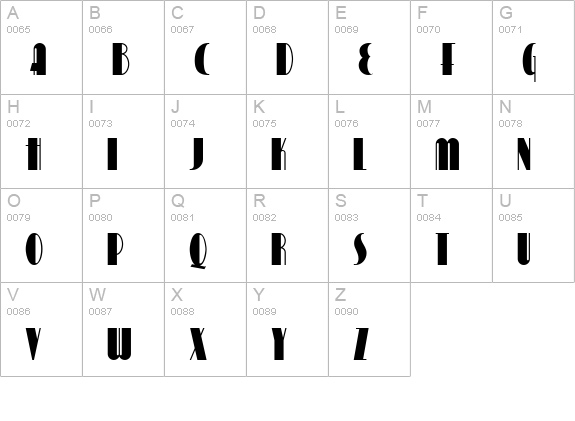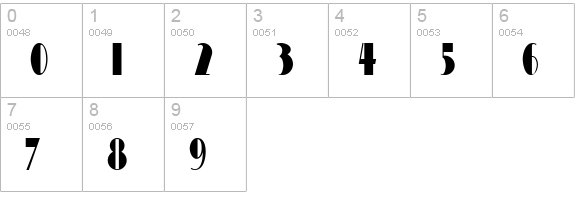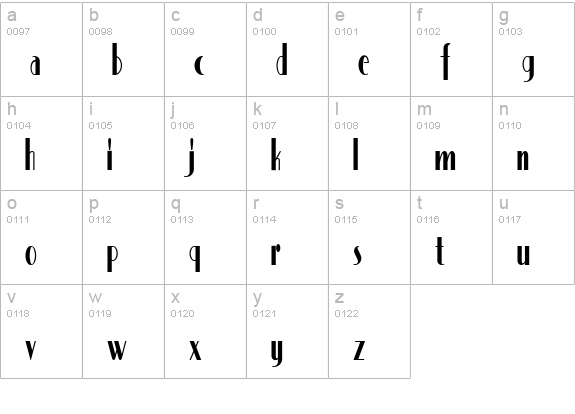
PicturePostcardNF Medium Font Details
PicturePostcardNF Medium is a balanced, medium-weight variant in the PicturePostcardNF typeface family \xE2\x80\x94 well suited to sub-headlines, navigation, and balanced editorial work.
PicturePostcardNF Medium font is a visually stunning typeface that effortlessly captures the essence of vintage postcards. With its elegant and intricate detailing, this font is perfect for adding a touch of nostalgia and charm to any project. The medium weight of the font strikes the perfect balance between legibility and style, making it ideal for a wide range of design applications. The unique design of PicturePostcardNF Medium font draws inspiration from classic postcard typography, with its slightly rounded edges and decorative embellishments. Each letter is meticulously crafted, creating a harmonious and cohesive look that is sure to captivate the viewer's attention. One of the best features of PicturePostcardNF Medium font is that it is available for free. Yes, you read that right! This incredible font is freely available to download at FontsMarket.com. Whether you're a professional designer or a creative enthusiast, you can easily access this font and use it in your projects without any cost. PicturePostcardNF Medium font is a versatile typeface that can be used in a variety of design projects. From logos and branding to posters and invitations, this font will add a touch of elegance and sophistication to your work. Its timeless appeal and nostalgic feel make it a perfect choice for creating a vintage-inspired look. So, why wait? Head over to FontsMarket.com today and download PicturePostcardNF Medium font for free. Let your creativity soar and bring a touch of old-world charm to your designs with this remarkable typeface.